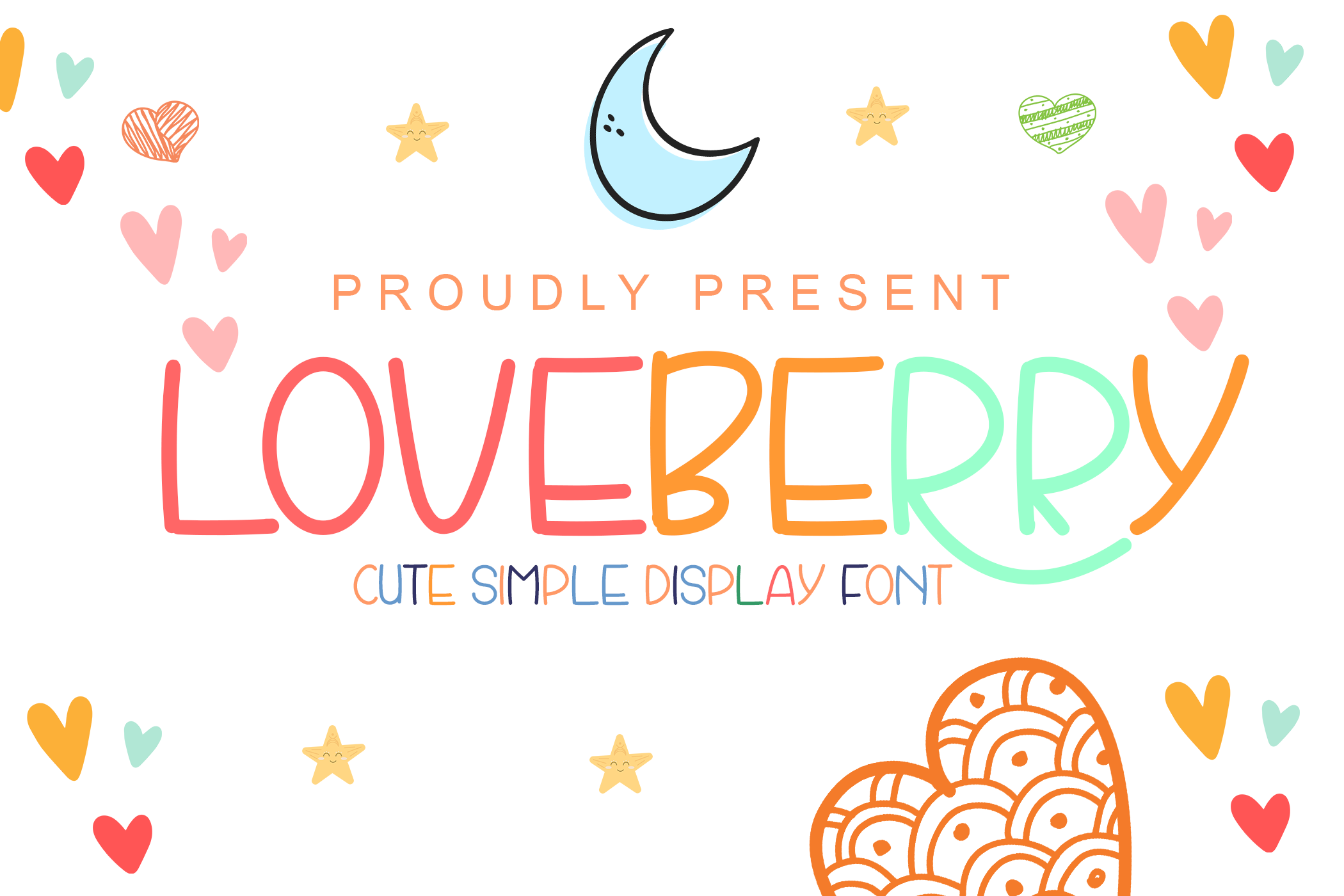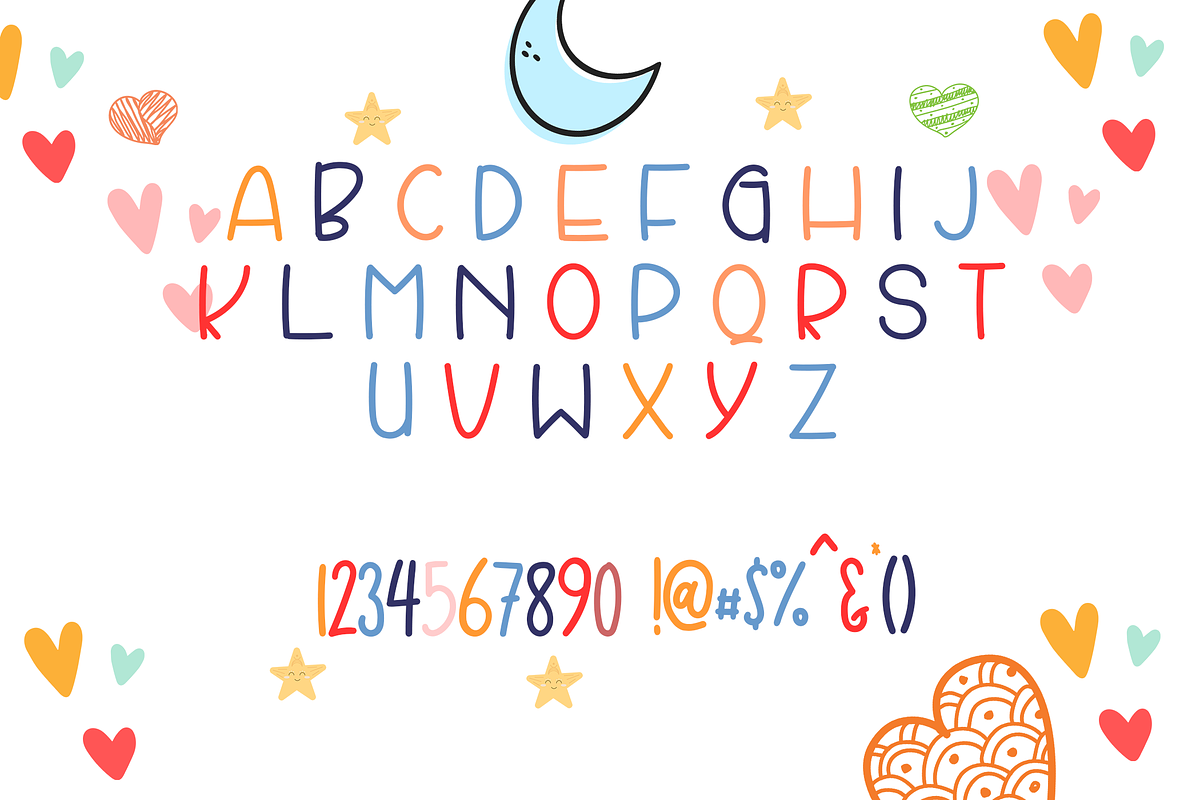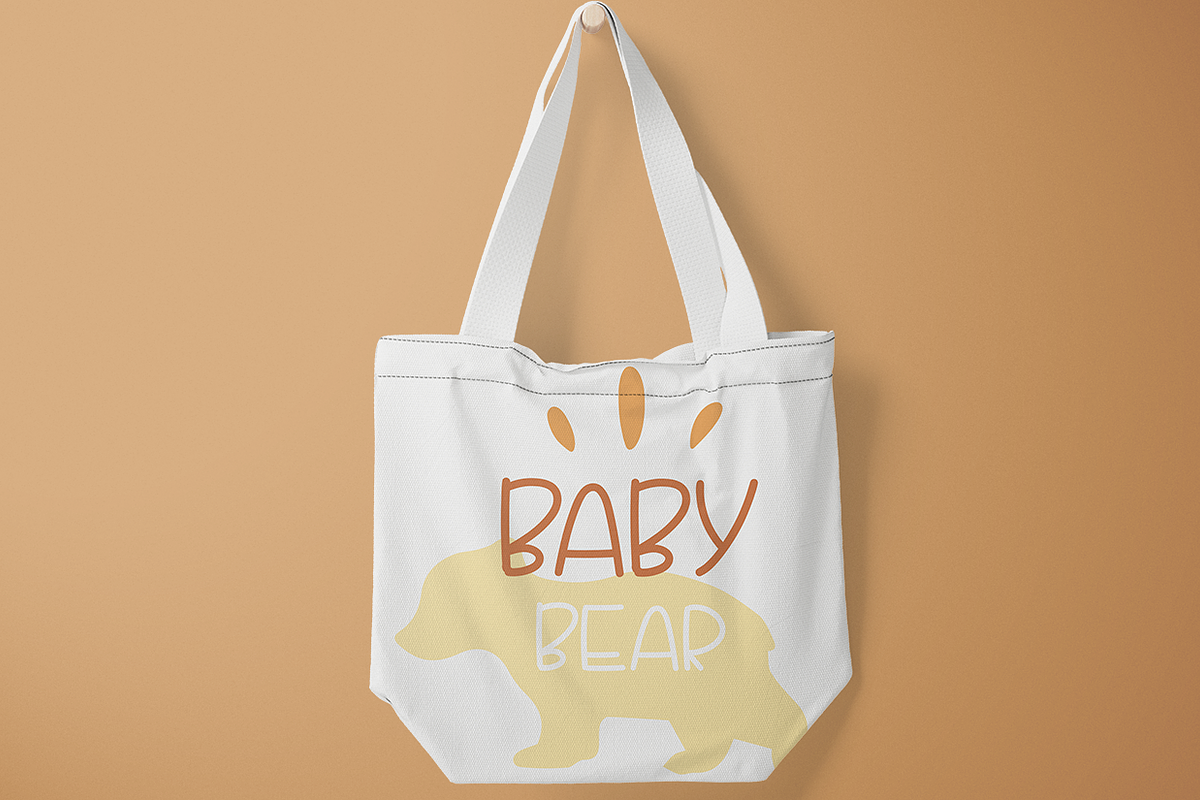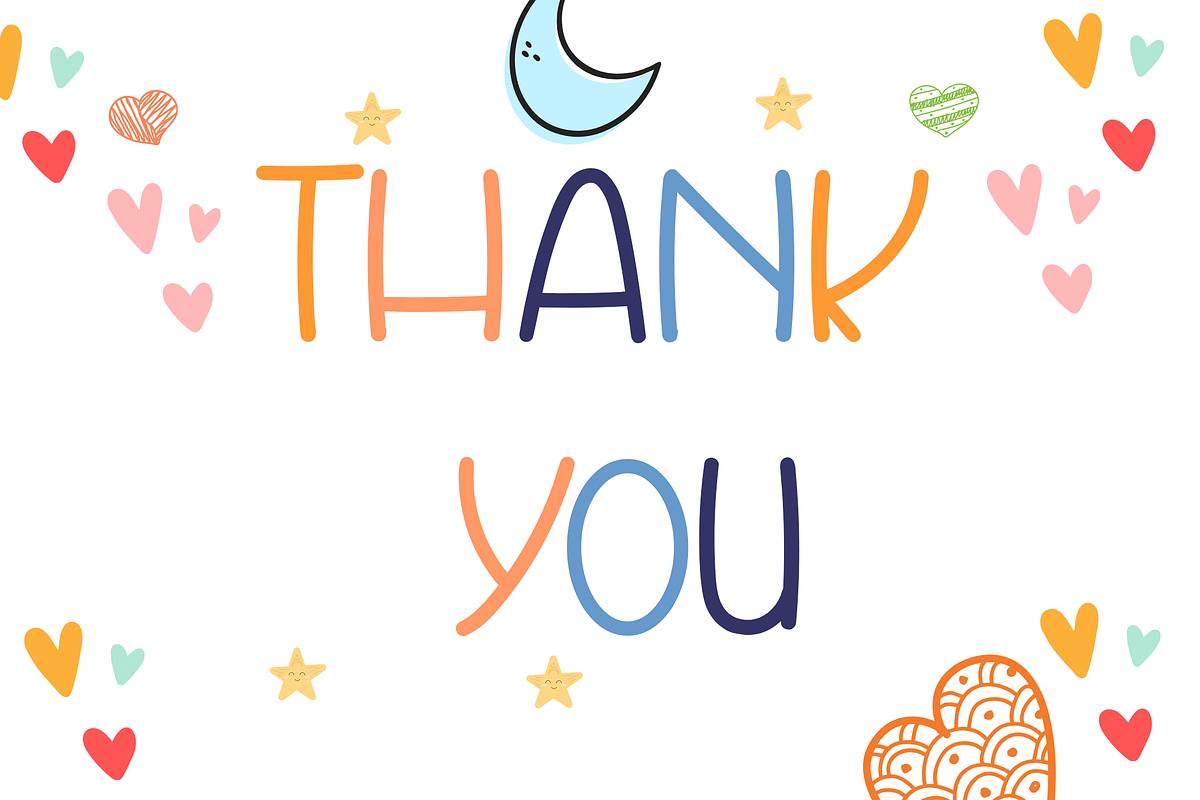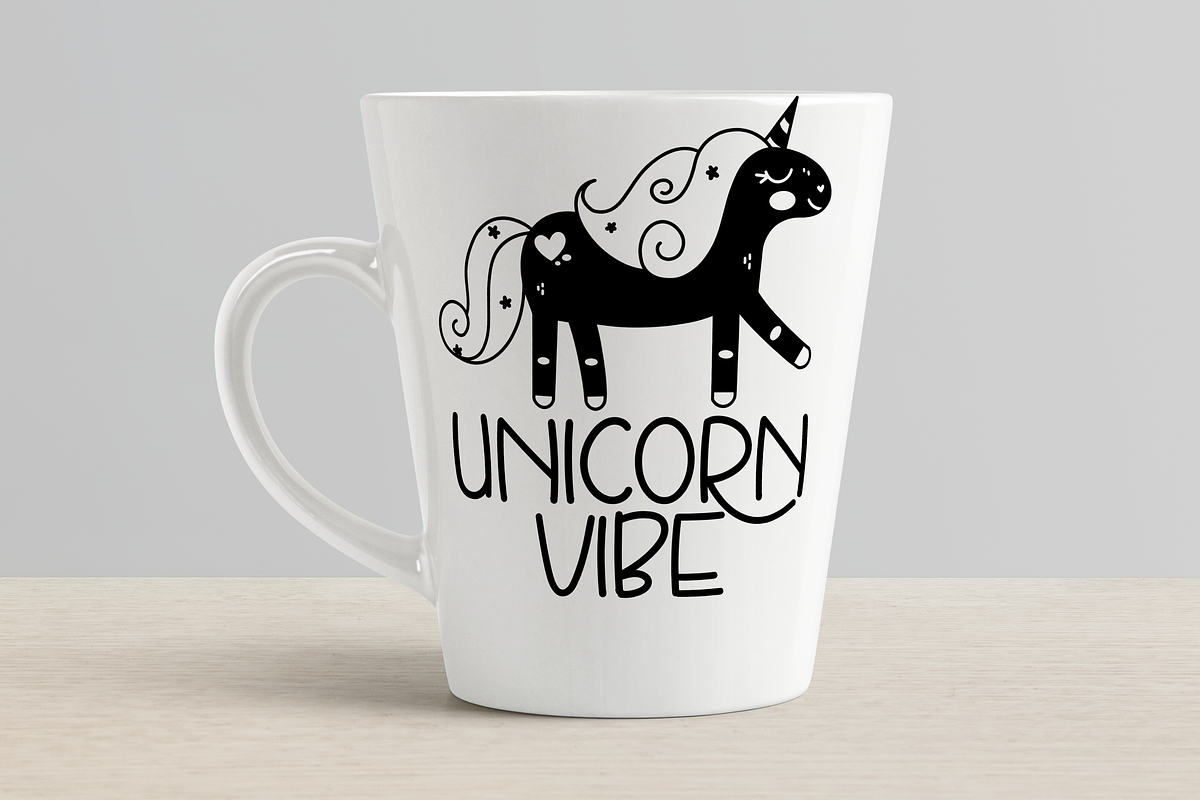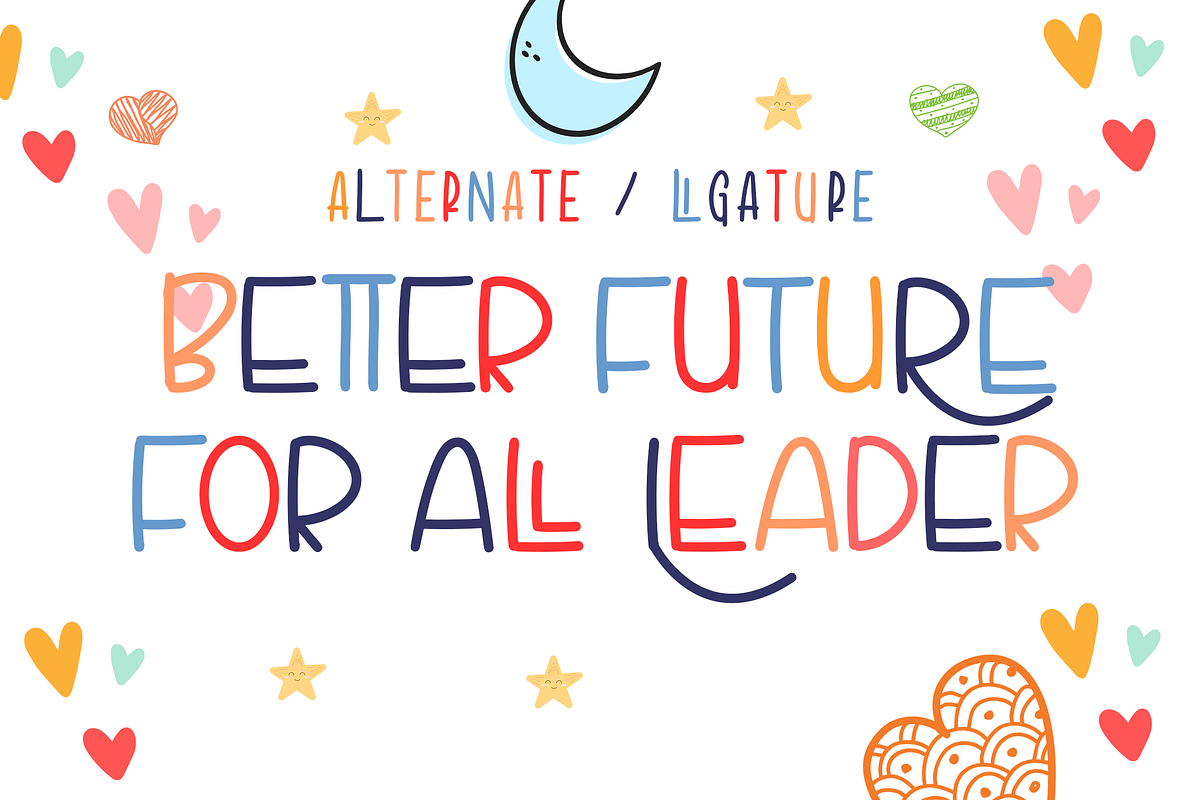
Loveberry Font
Loveberry is a cute, simple and delicate handwritten font. This font is perfect for children themed designs, especially when combined with bright colors. What's inside: ligatures alternates regular kerning